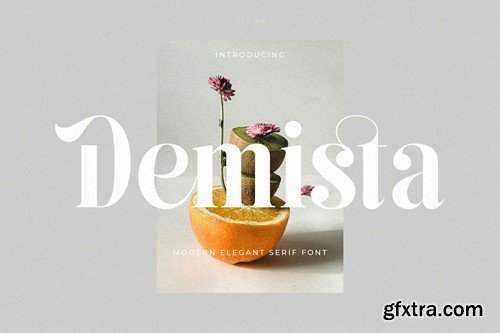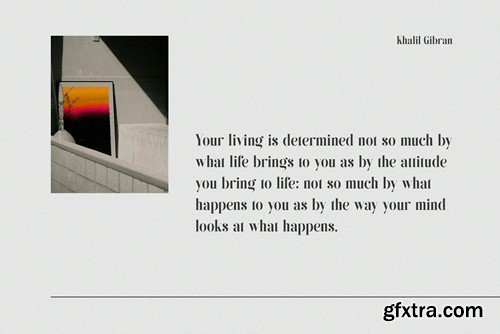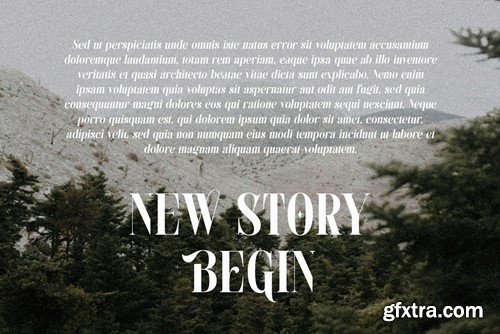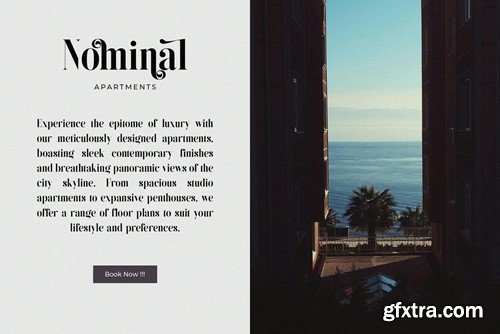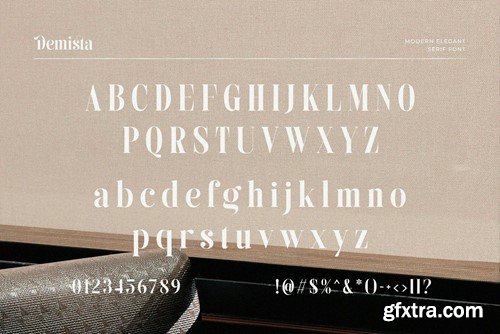
DEMISTA - 现代优雅衬线字体 294FPBE
Demista - Modern Elegant Serif Font 294FPBE
Demista - Modern Elegant Serif Font
Introducing our new Demista, modern serif font with elegant style this is perfect for branding, logos, invitation, magazines, product packaging and more.